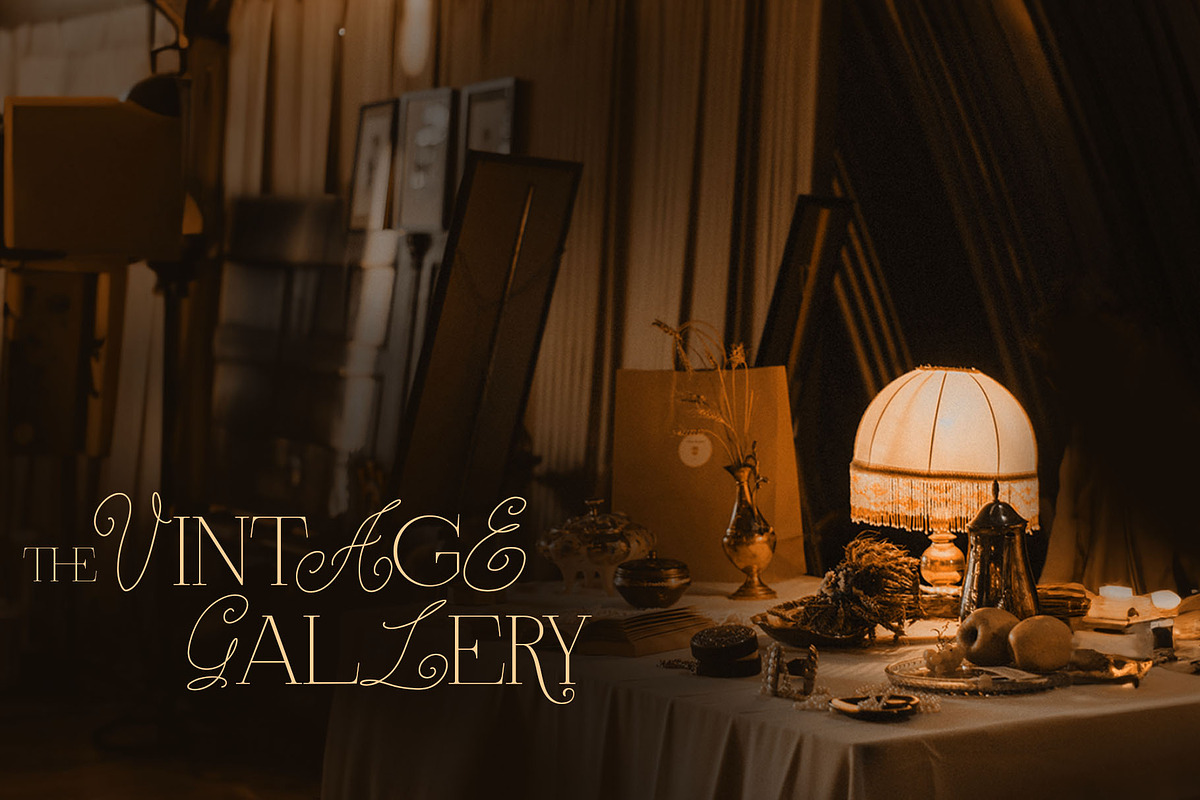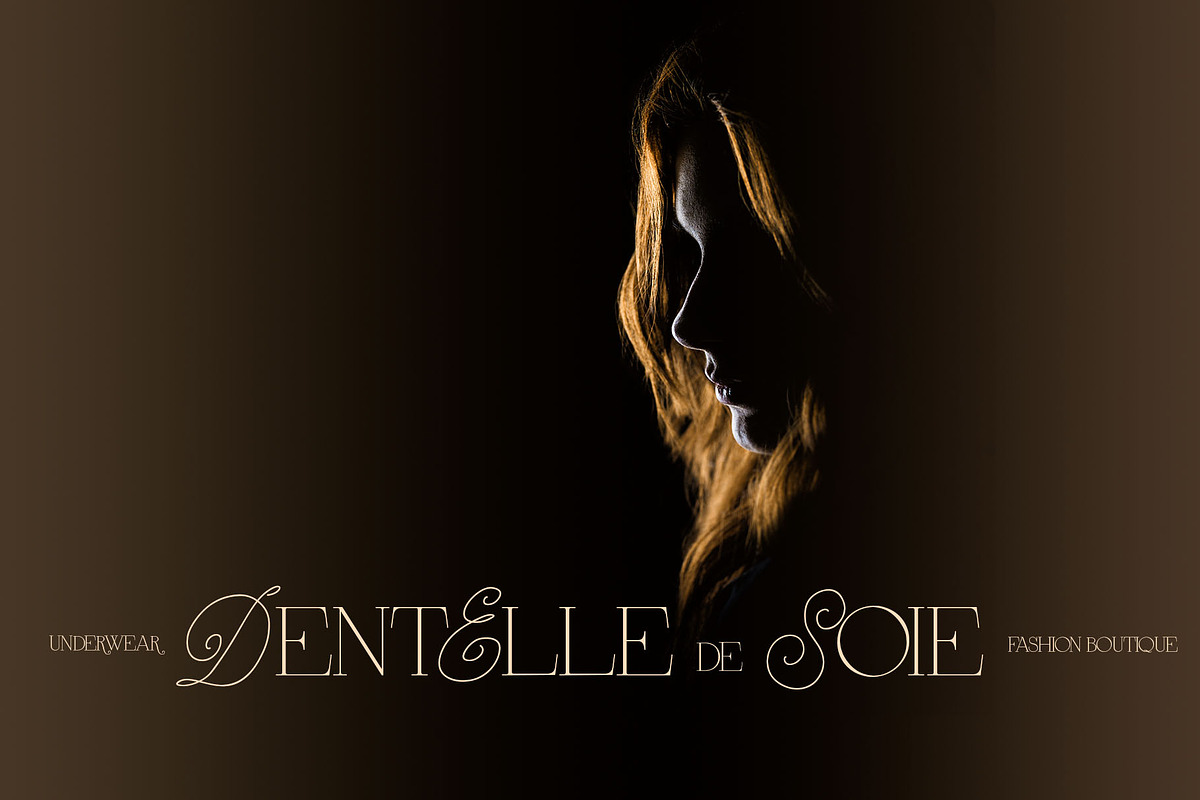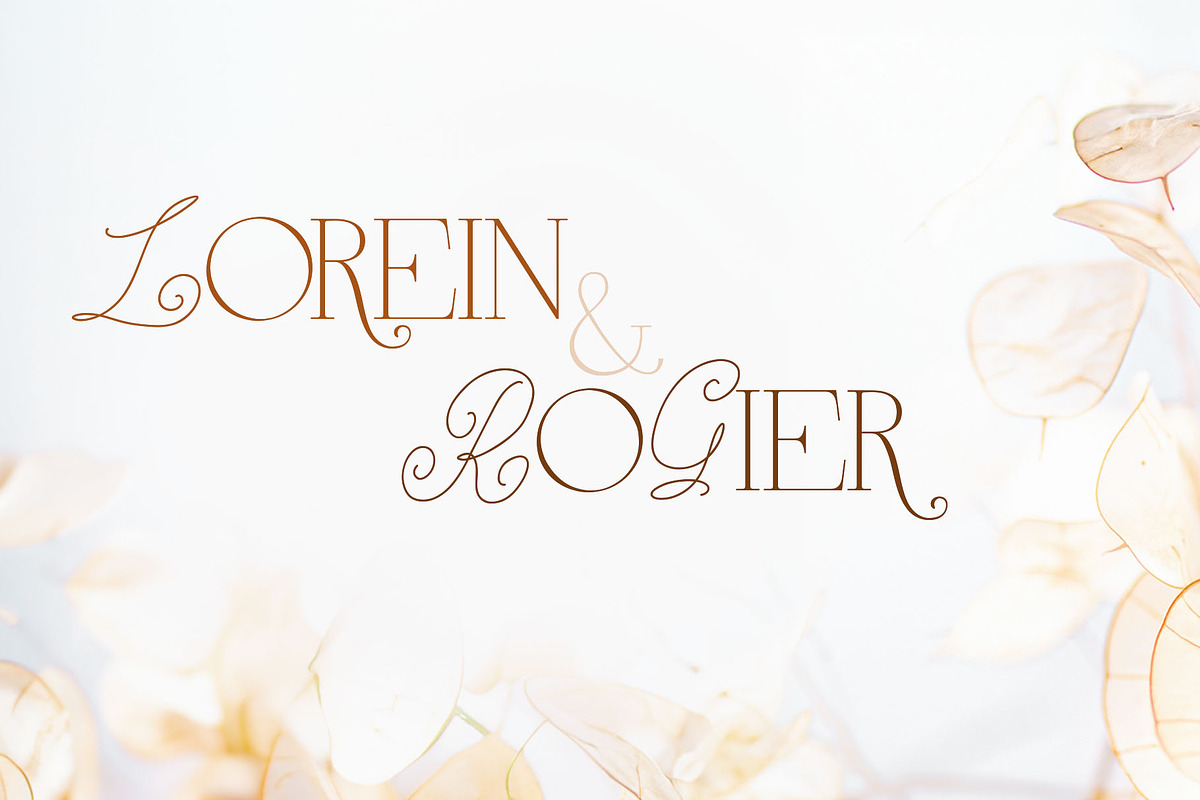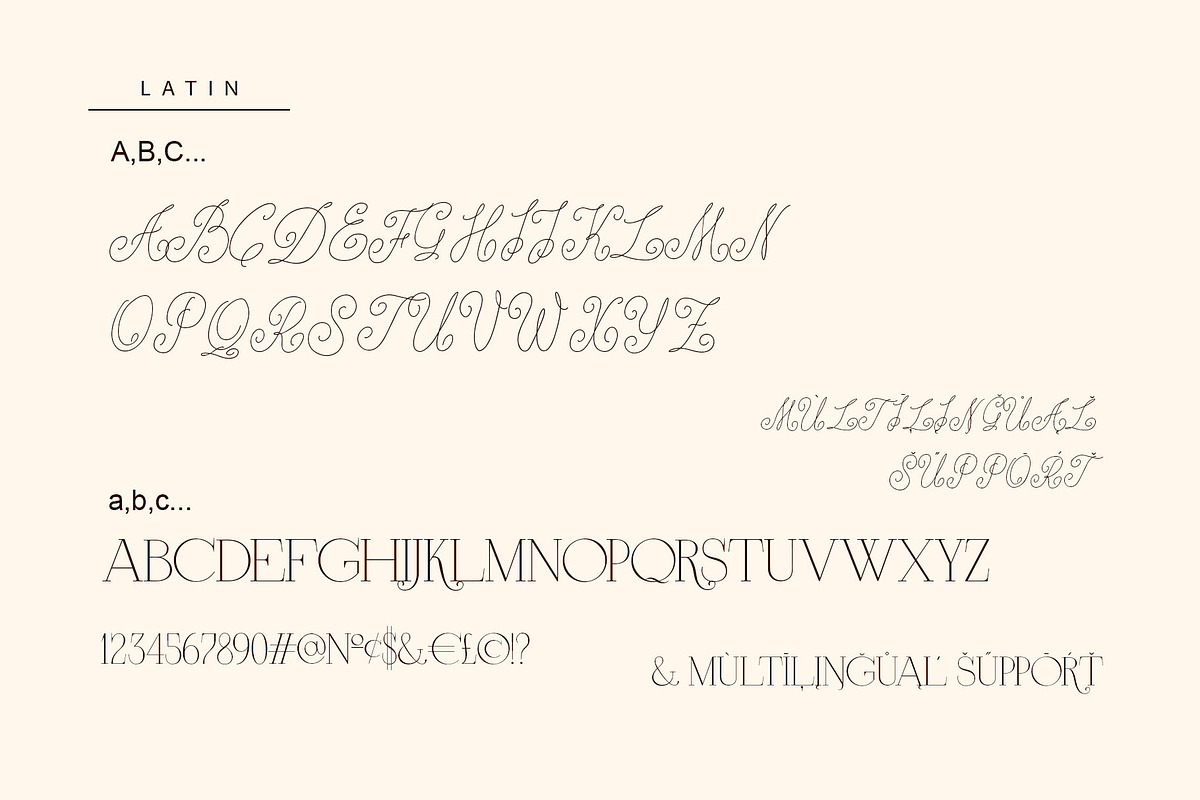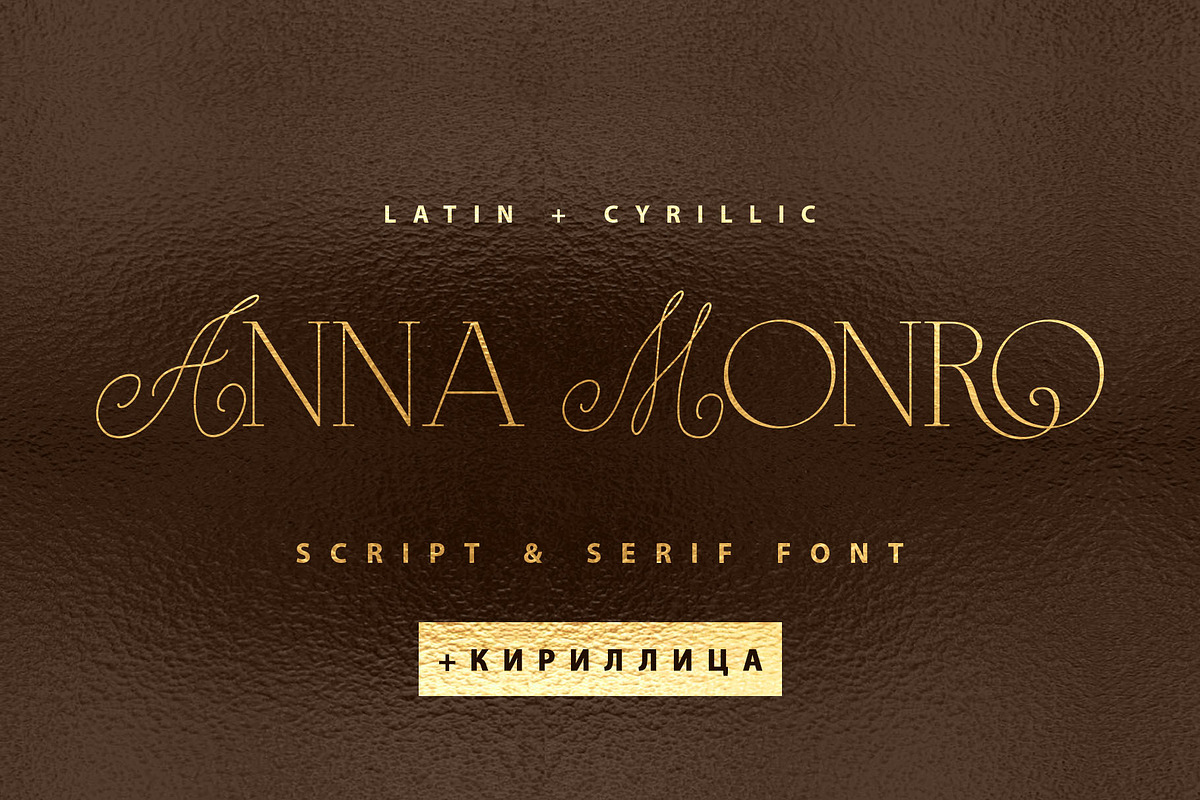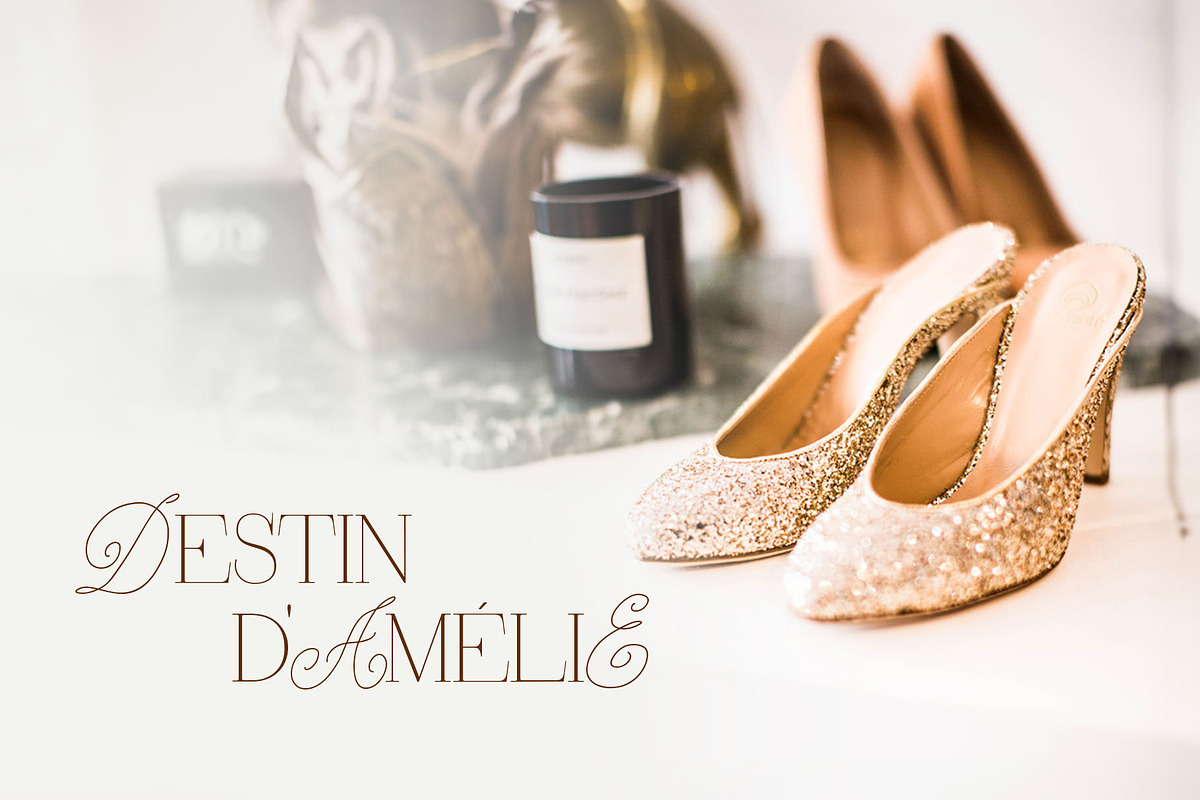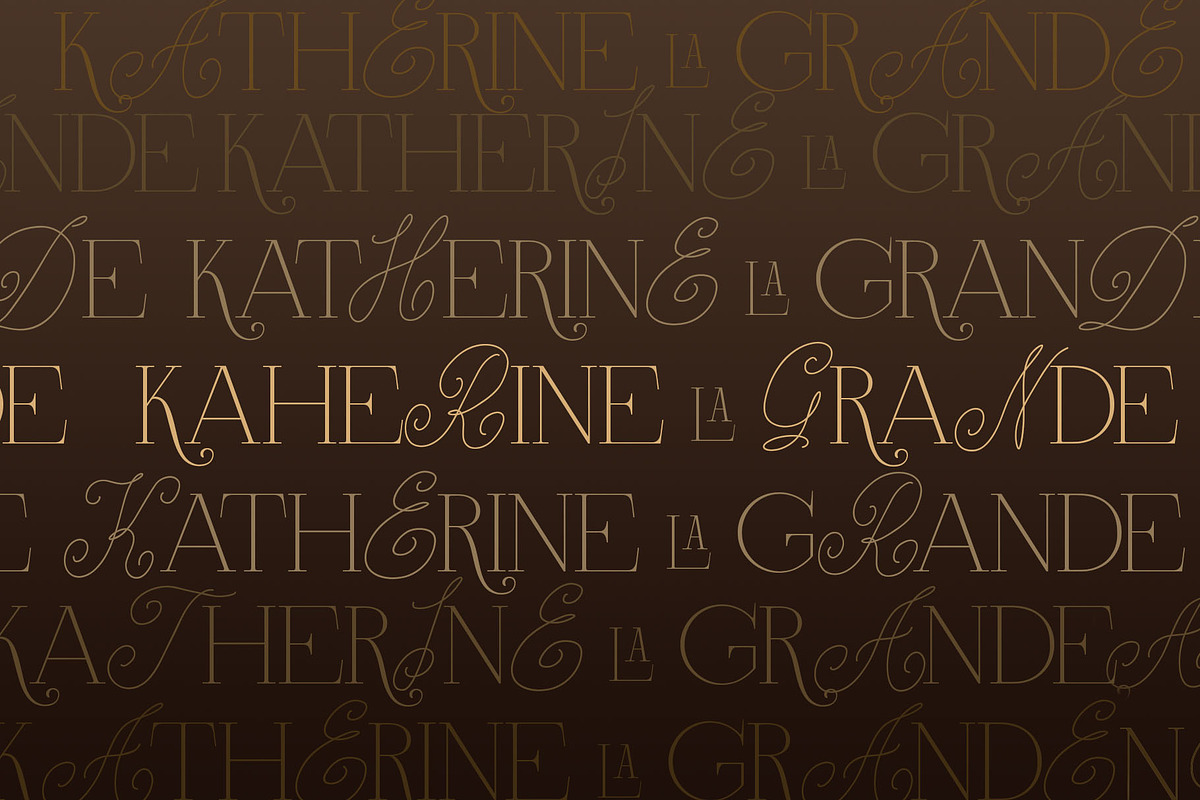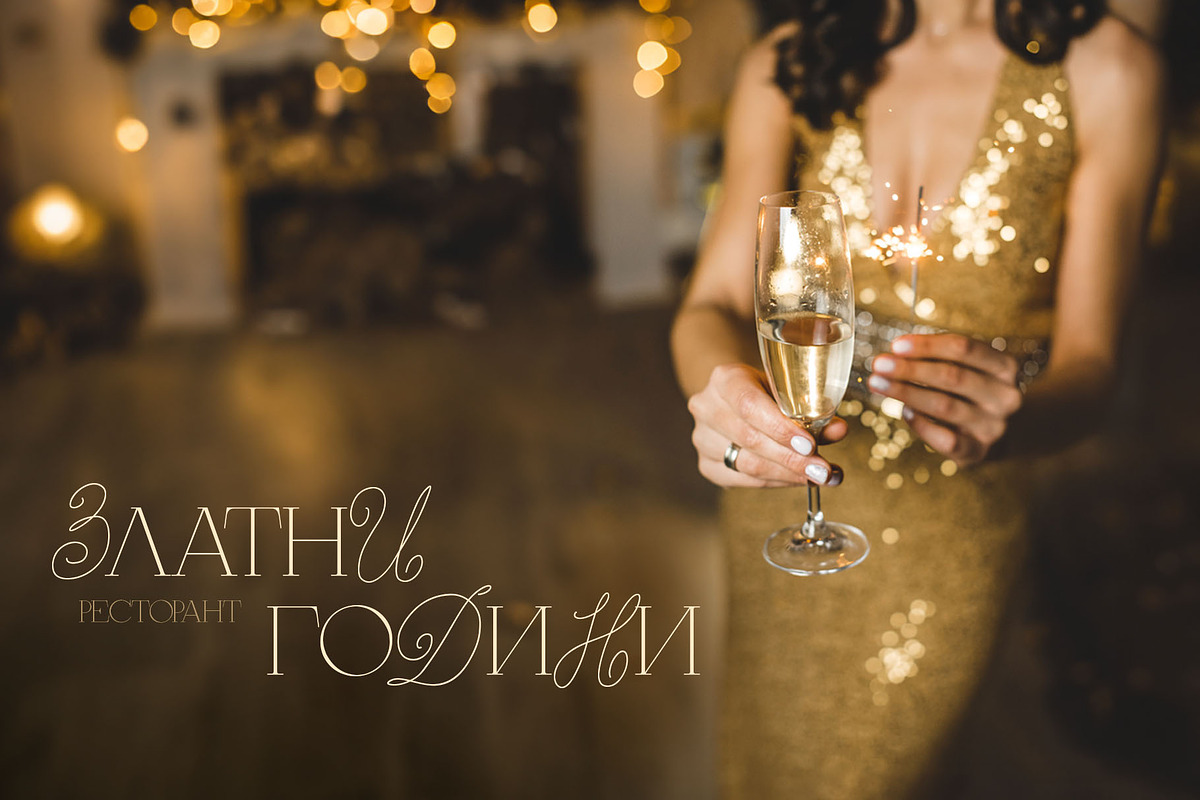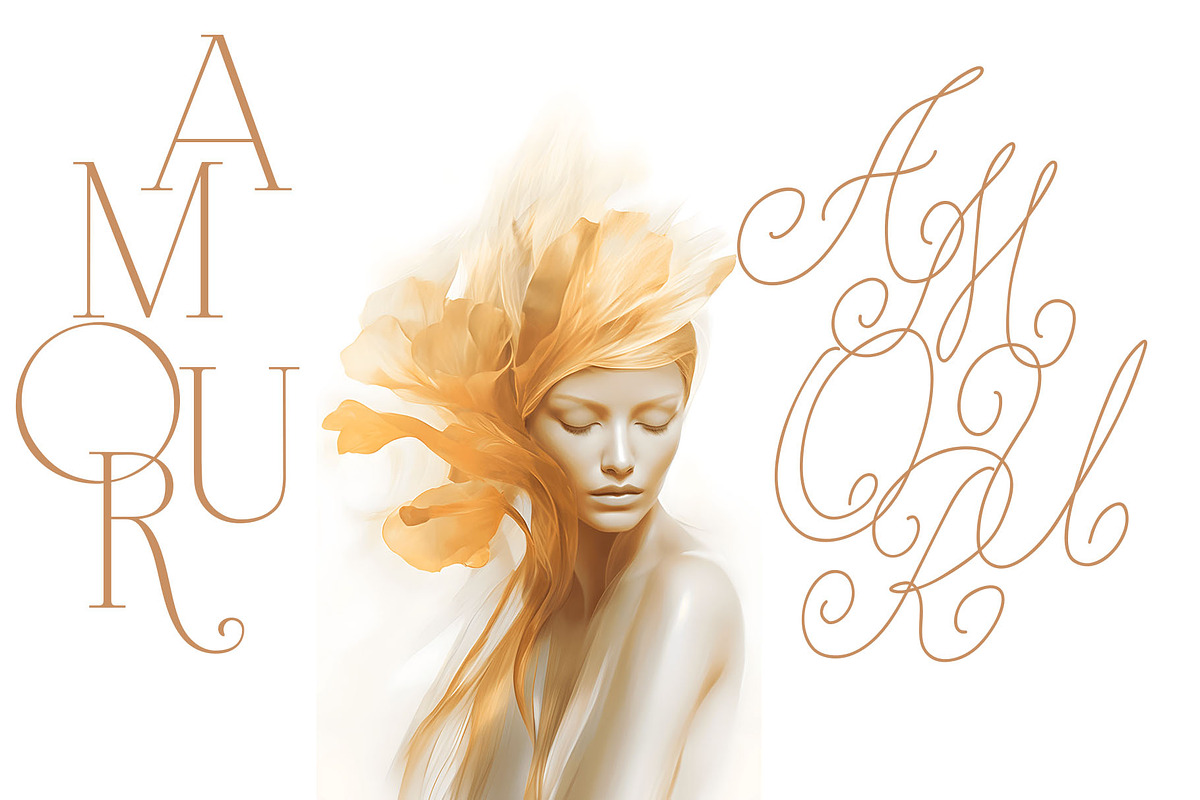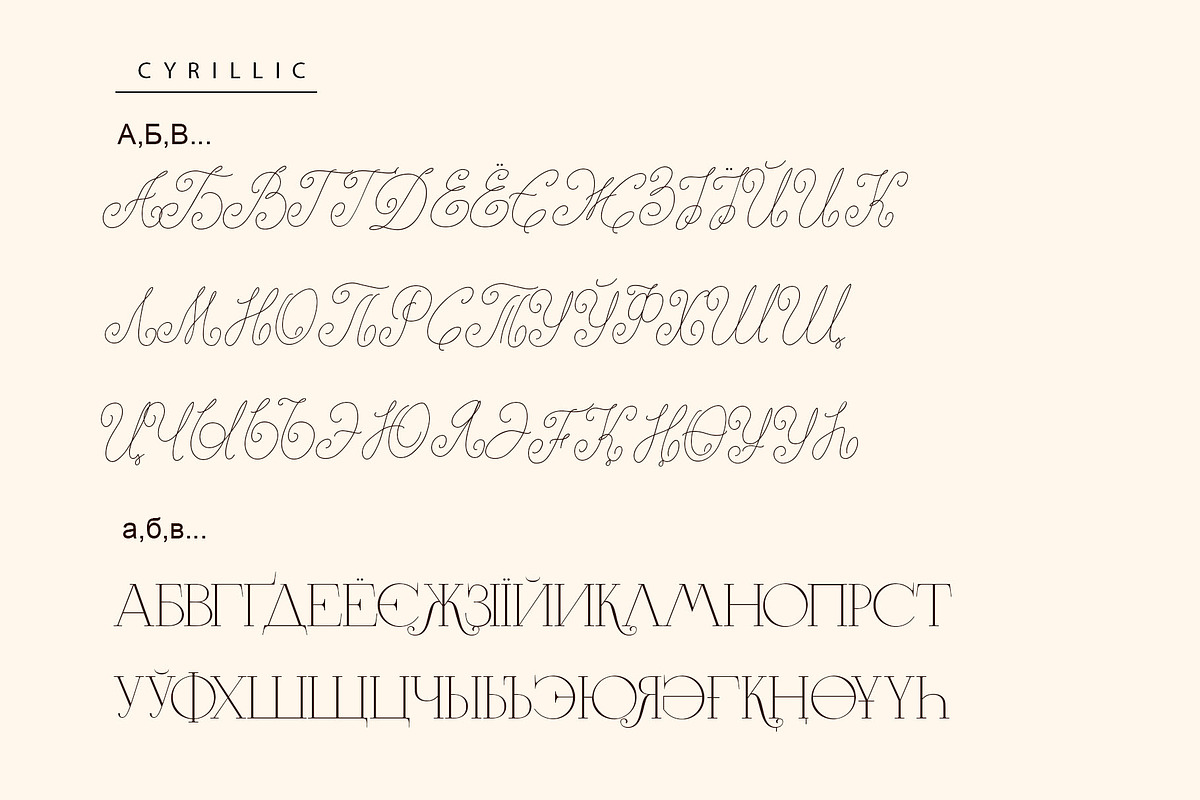
Anna Monro Cyrillic Script Serif
Anna Monro Script Serif Font is a font with Uppercase Serif Letters in lowercase glyph positions and Script Fluorishes Uppercase Letters in uppercase glyph positions. The Anna Monro Script Serif Font will be perfect for branding, logos, wedding stationery, social media, packaging, and other projects that require an elegant touch.
The Latin part contains 29 ligatures which you can get by typing the number 1 after letters such as OC1 KO1 Lu1...
The Cyrillic part also contains 15 ligatures
Multilingual Support for 34 languages: Latin glyphs for Afrikaans, Albanian, Basque, Bosnian, Catalan, Danish, Dutch, English, Estonian, Faroese, Filipino, Finnish, French, Galician, Indonesian, Irish, Italian, Malay, Norwegian Bokmål, Portuguese, Slovenian, Spanish, Swahili, Swedish, Turkish, Welsh, Zulu. Ukraine Sale fonts. Cyrillic font supports Russian, Belorussian, Bulgarian, Ukrainian, Mongolian and Kazakh languages.